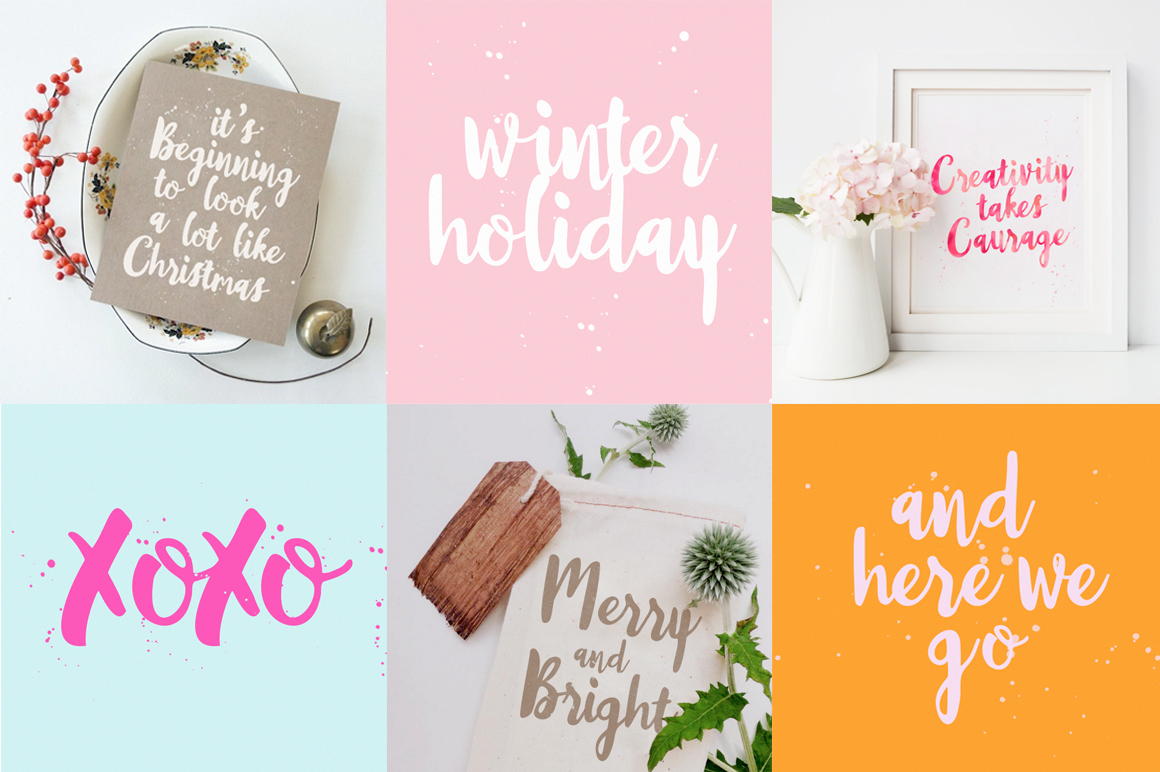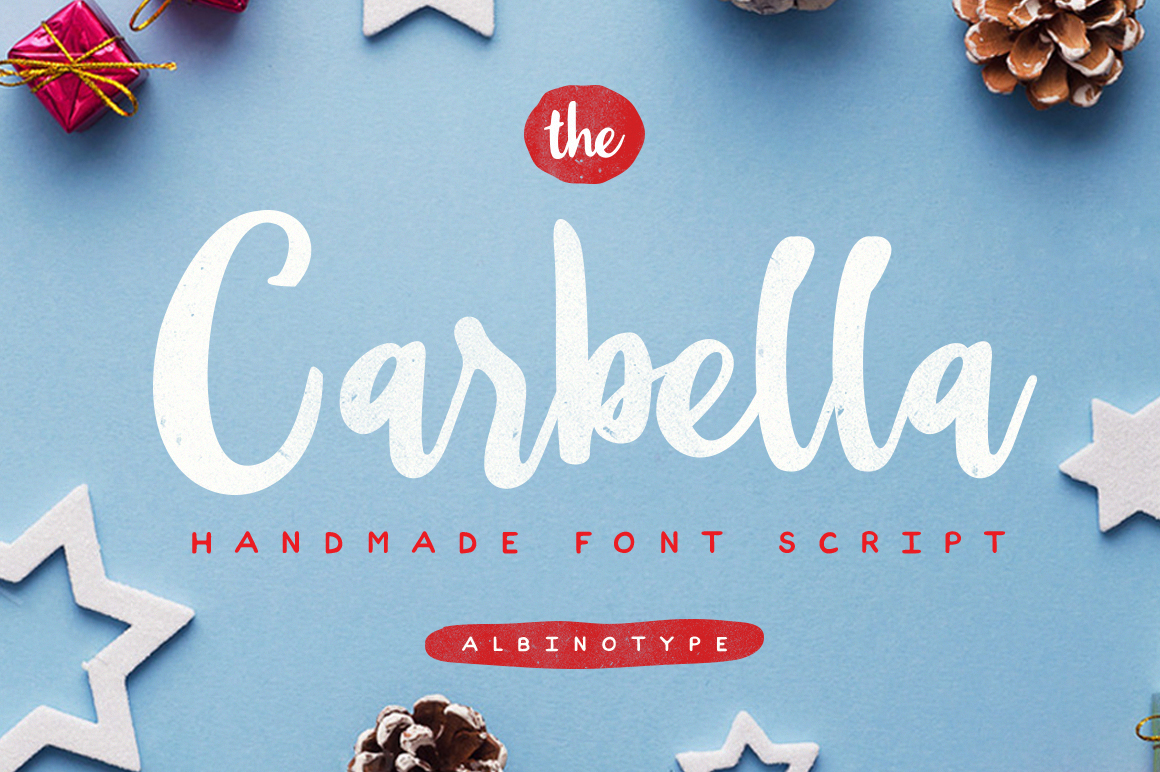
The Carbella
The Carbella Font
The Carbella typefaces was created as font purpose, with imperfect, hand painted characters and an irregular baseline. this fonts have dancing baseline to ensure that modern style. thin stroke and fat in this fonts impresses the harmony..and support miltilanguage